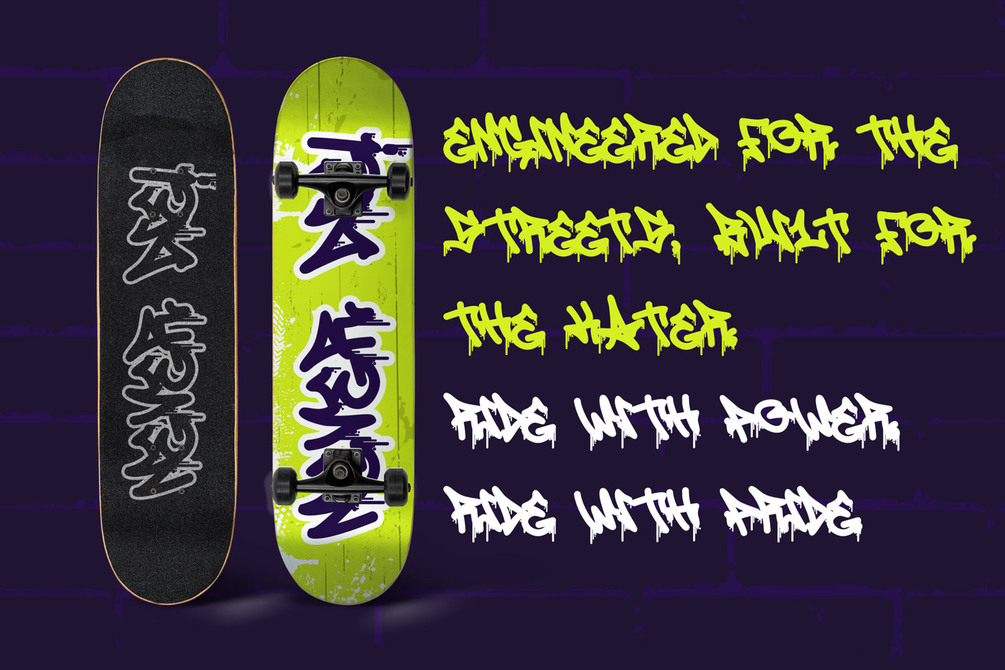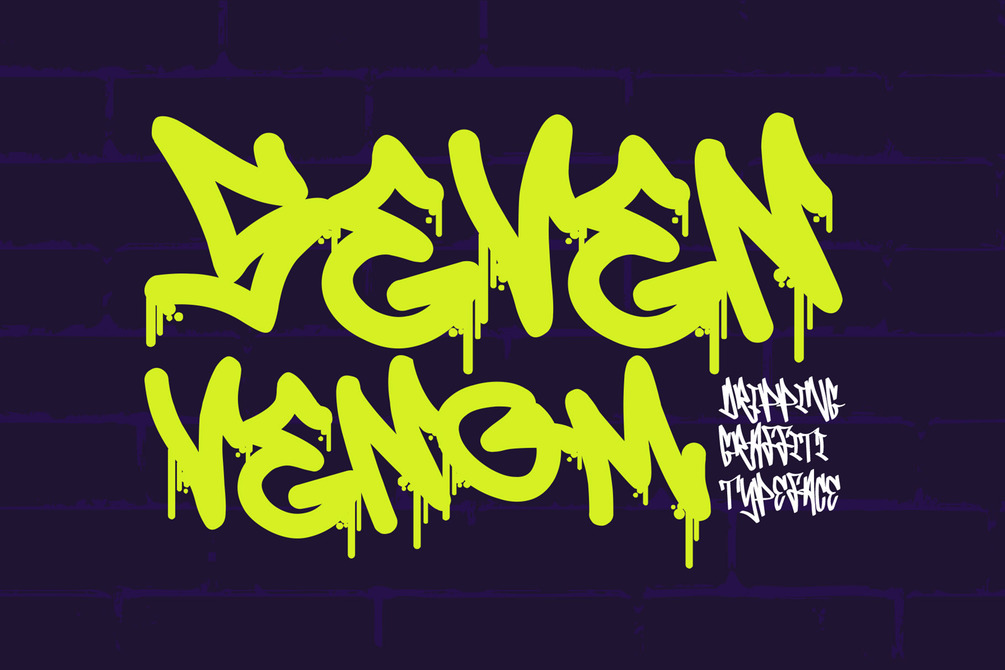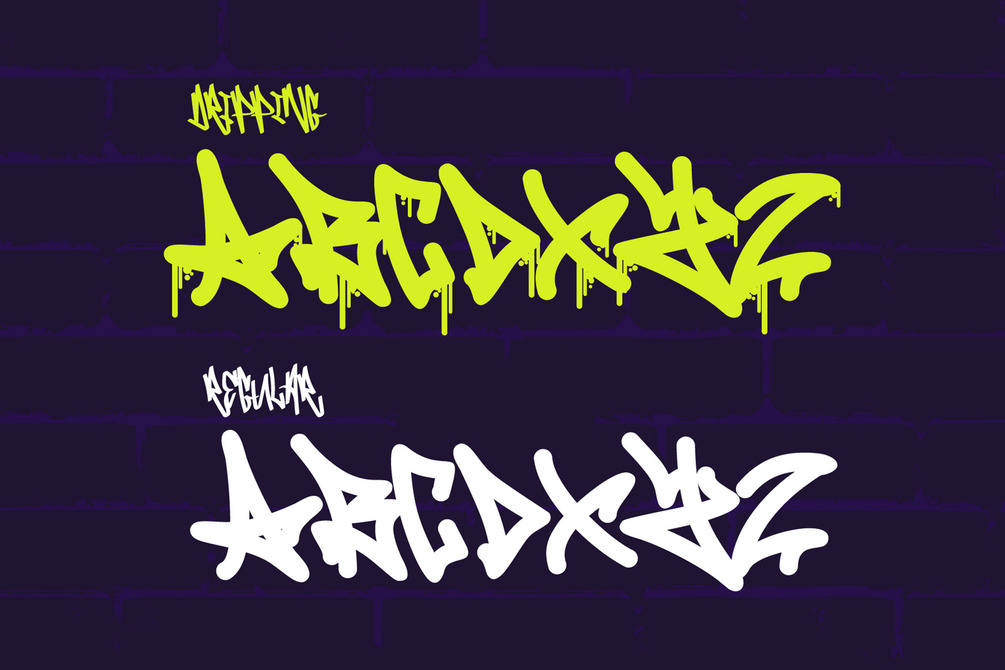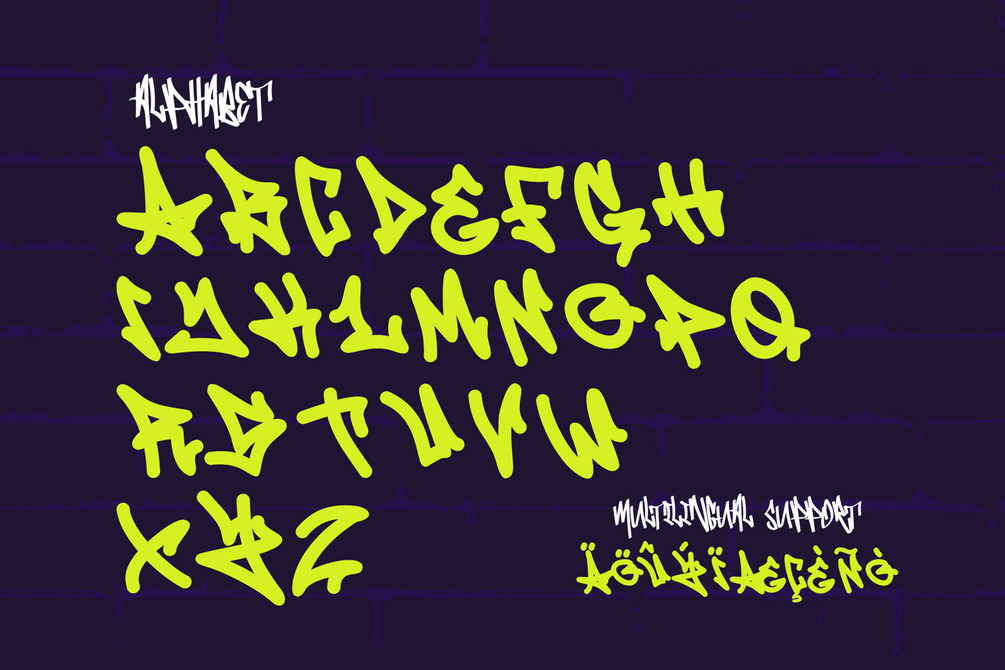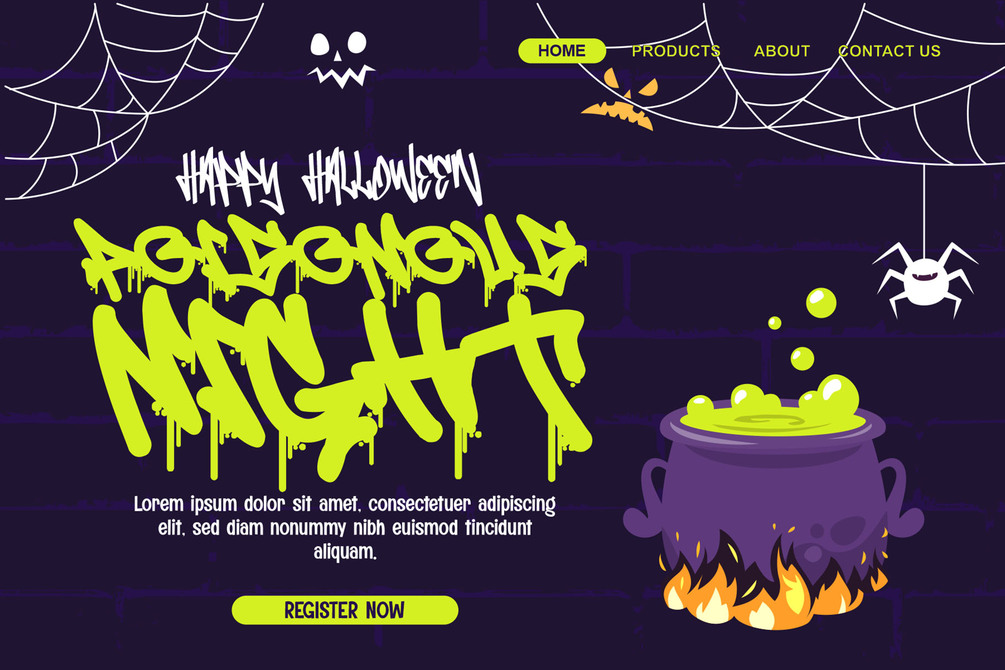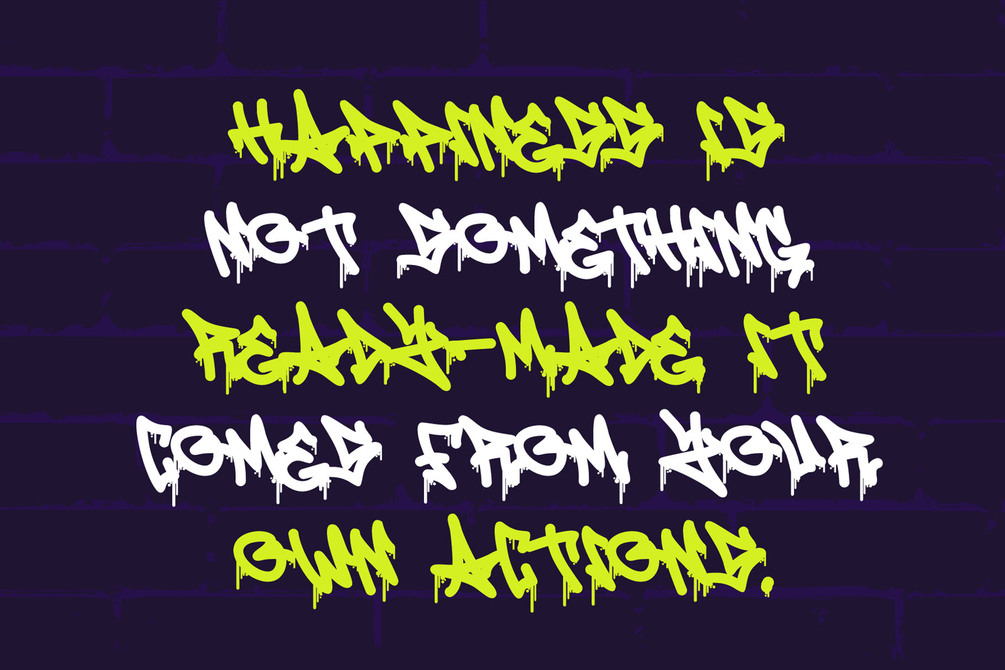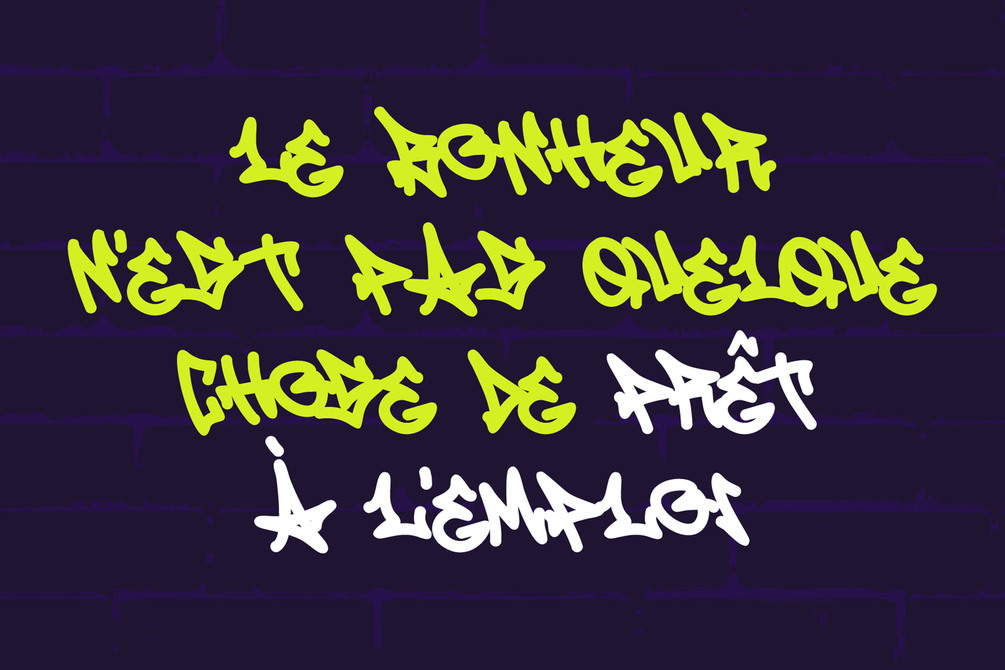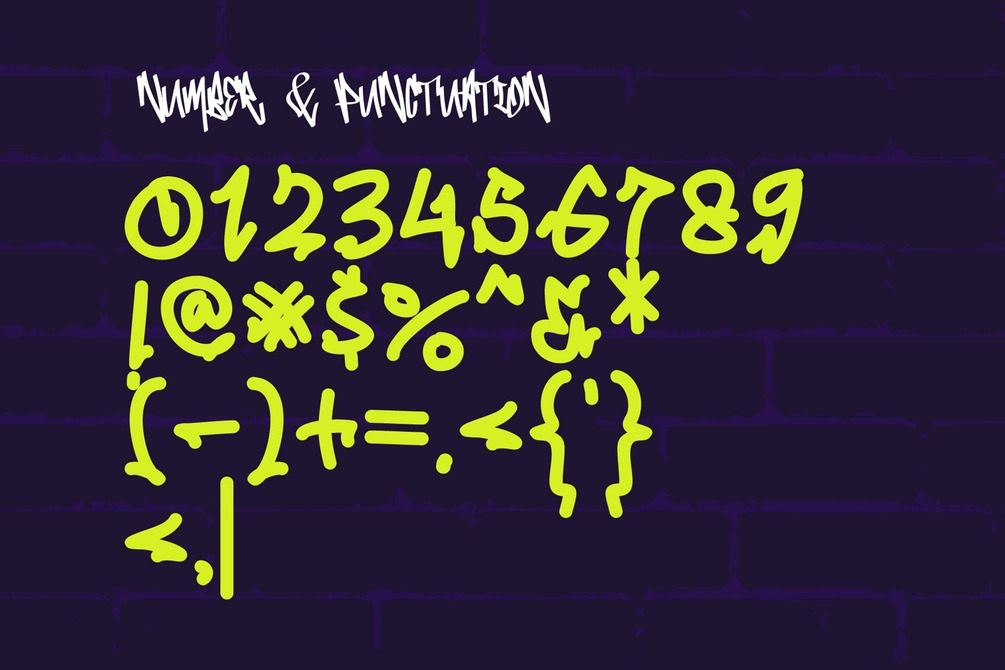
Seven Venom is a striking graffiti monoline font with a unique dripping effect, available in two styles: drip and regular. Its edgy, street-style aesthetic makes it perfect for a wide range of creative projects, especially those with urban, graffiti, or Halloween themes. The drip style adds a bold, raw, and rebellious touch, while the regular style offers a cleaner, straightforward graffiti vibe. Whether you're working on posters, streetwear designs, or spooky Halloween graphics, Seven Venom brings a cool and gritty character to your designs, making them stand out with a distinct street and urban influence.
• Multilingual Support
• Versatile for branding, headline, or printing product
Unleash your creativity with Seven Venom 💥 Make your designs pop with powerful graffiti vibes and Monoline With Swash. Grab it now and bring urban flair to your next project!